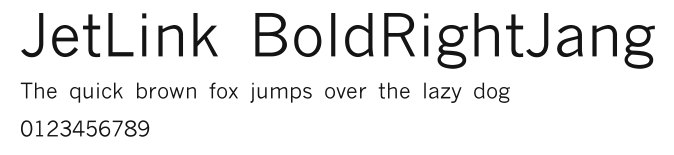
JetLink BoldRightJang Preview
About JetLink BoldRightJang.ttf
JetLink BoldRightJang.ttf is a modern, elegant sans-serif font designed for ultimate readability and visual harmony. Perfect for branding, headlines, web design, and print materials.